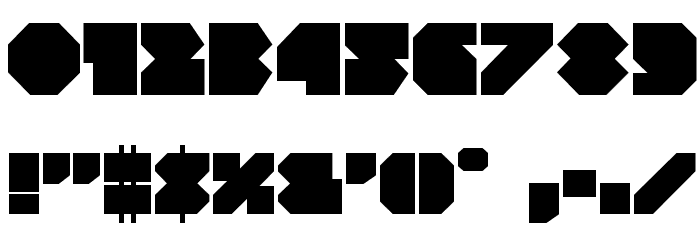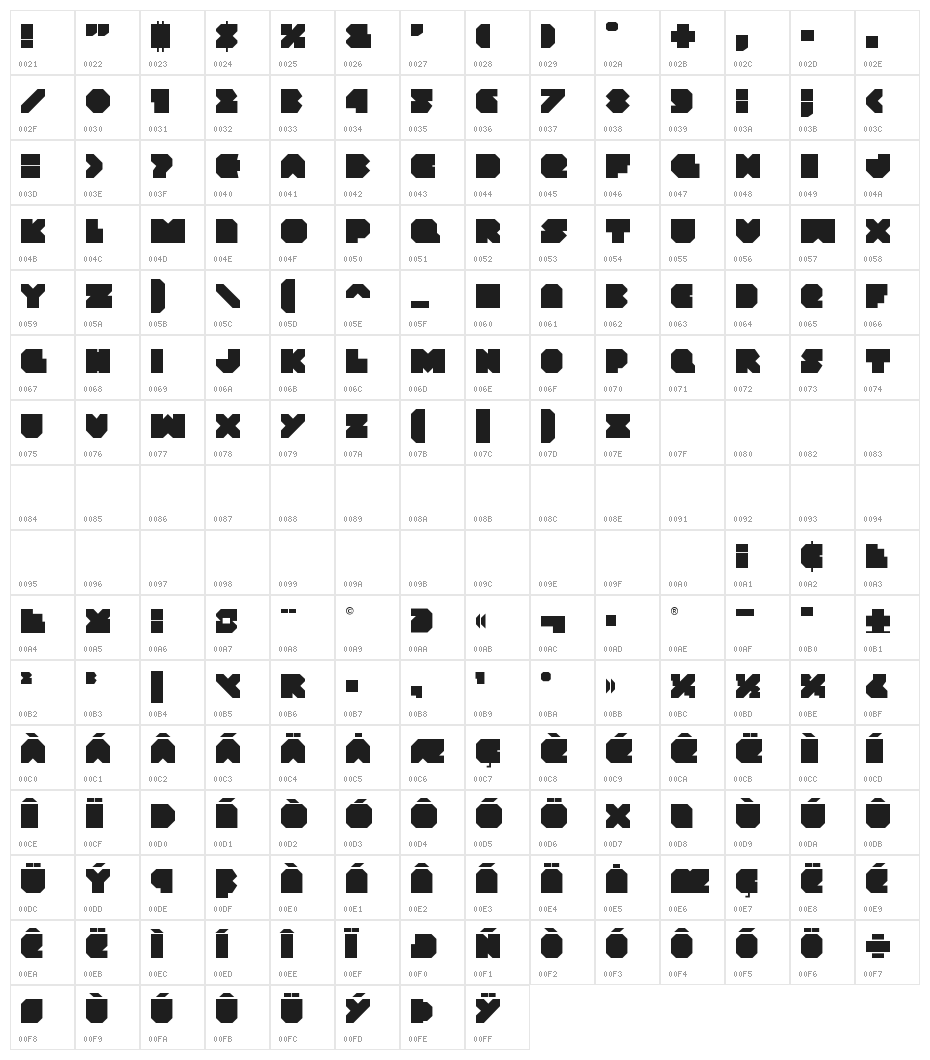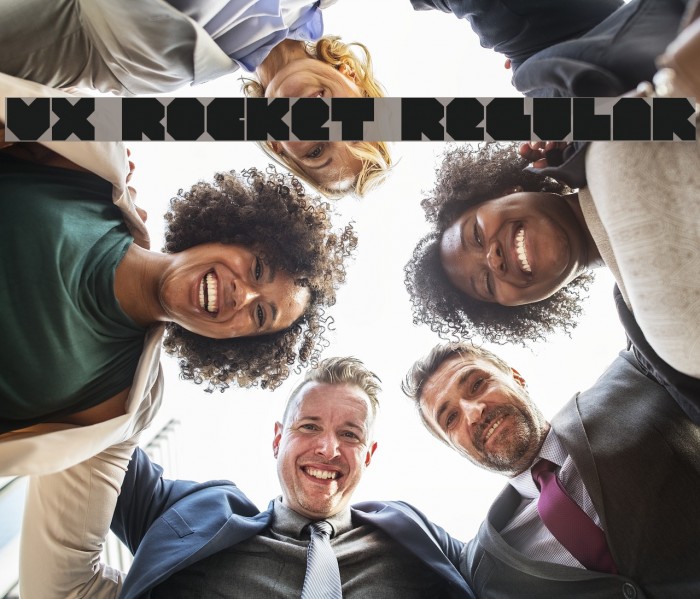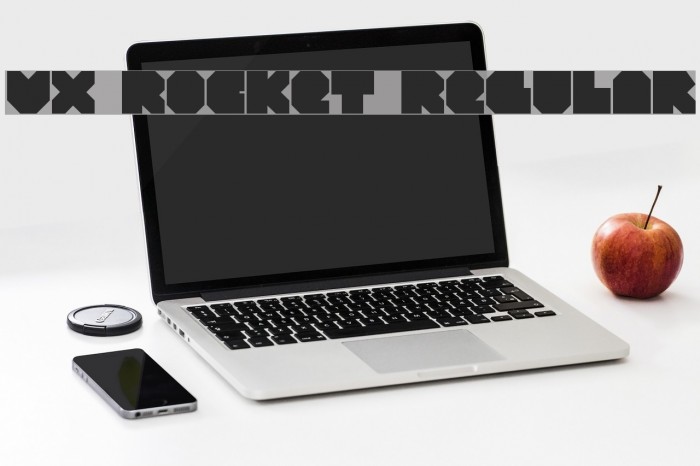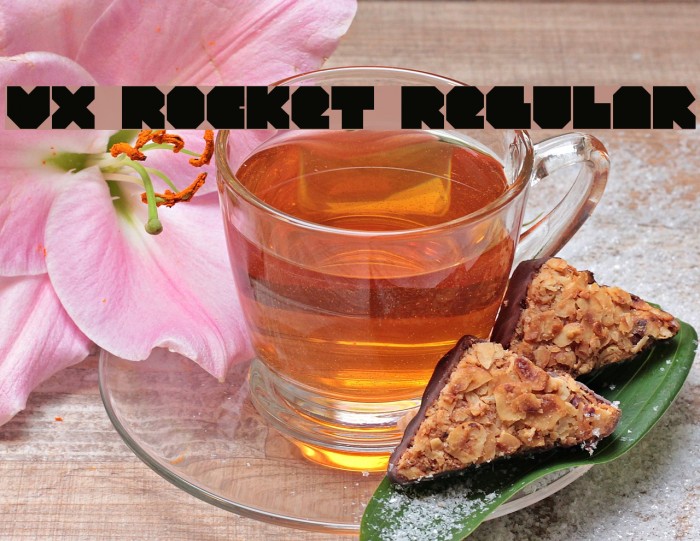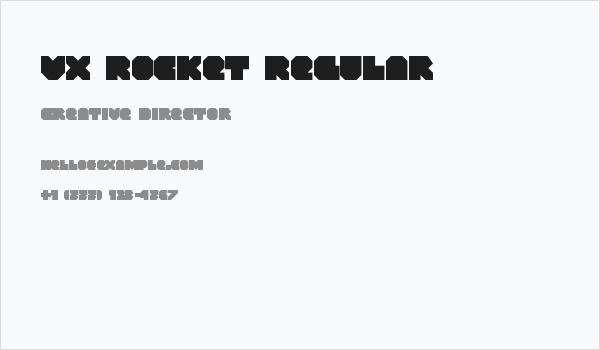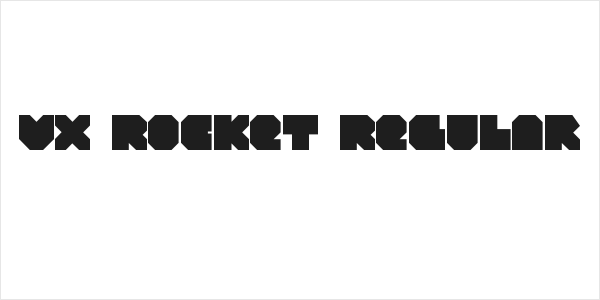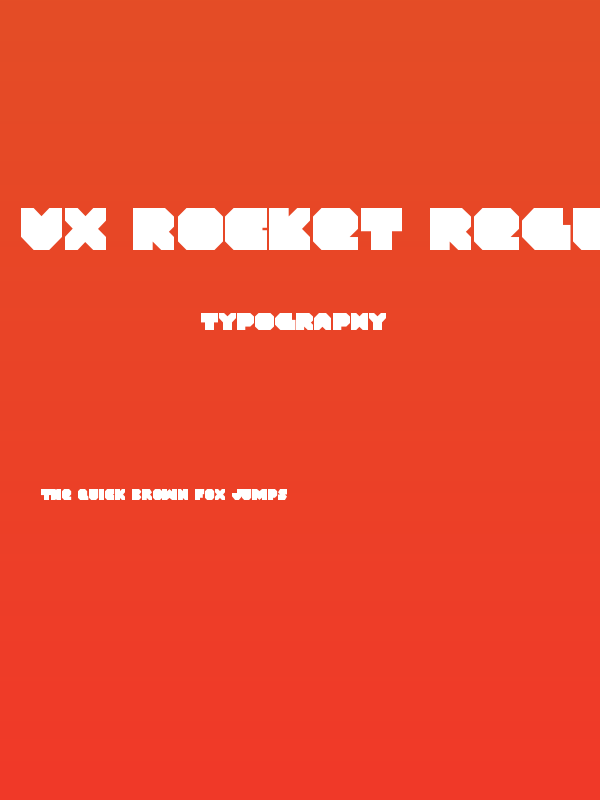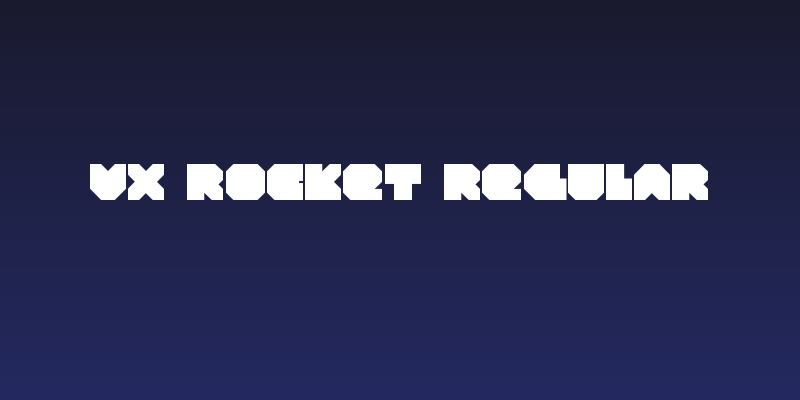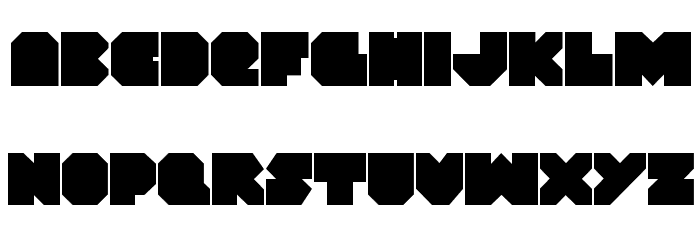
VX Rocket Regular Font
VX Rocket Regular Description
This font features a bold, geometric design with sharp angles and a futuristic aesthetic. The characters are constructed from solid blocks, creating a strong visual impact. The uppercase and lowercase letters maintain a consistent style, with the lowercase slightly smaller but equally bold. Numbers and special characters follow the same design principles, ensuring uniformity across all glyphs. The font's unique style makes it stand out, ideal for projects that require a modern and edgy look.
| Proposed Projects | Ideal for sci-fi themed designs, video game titles, posters, and branding that requires a modern and bold statement. |